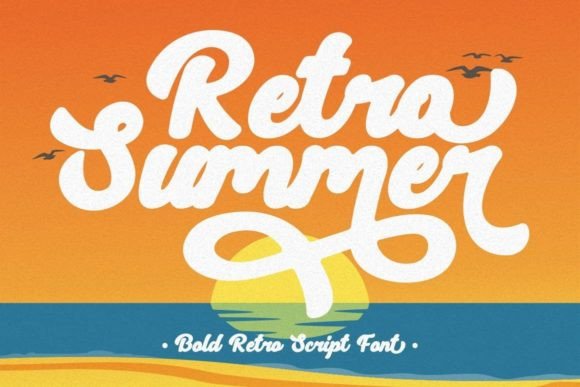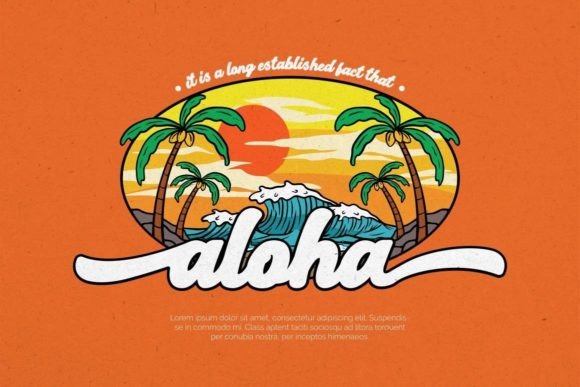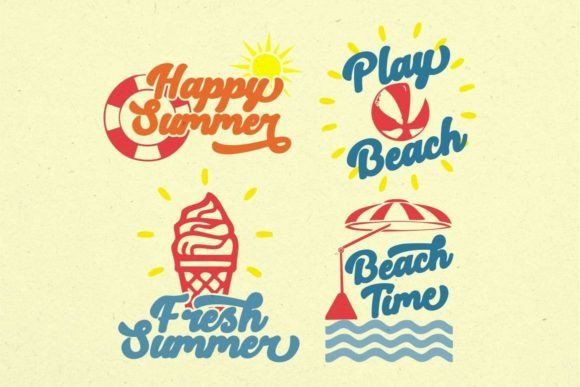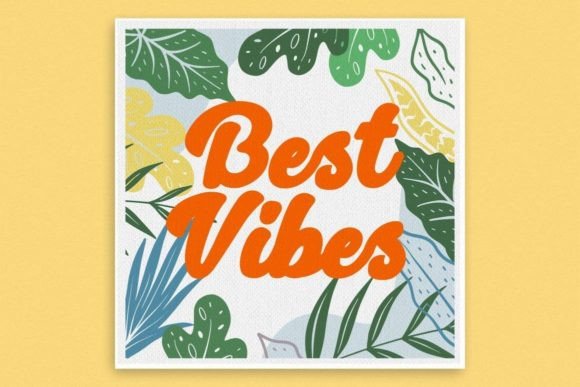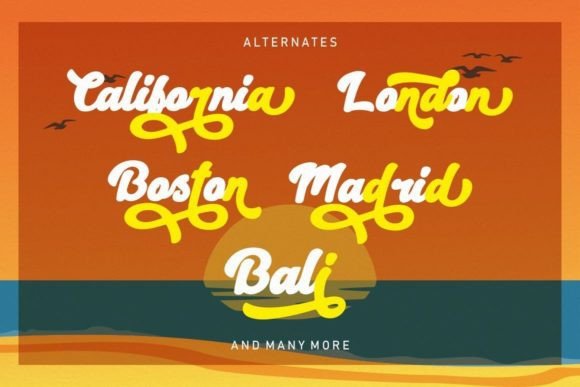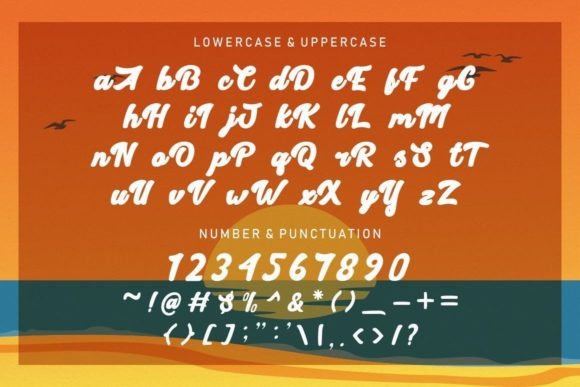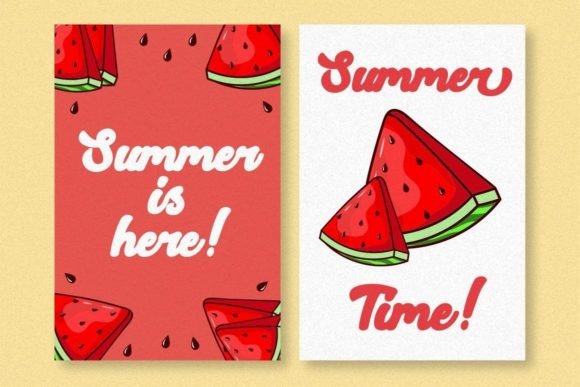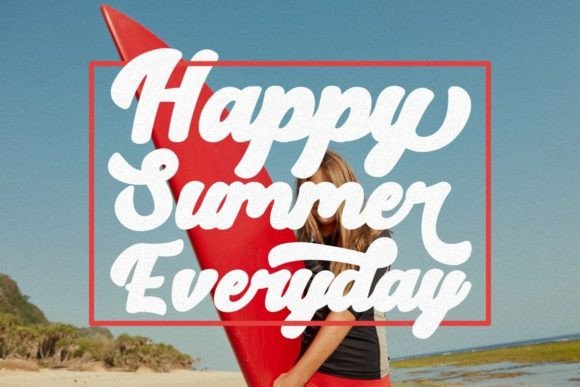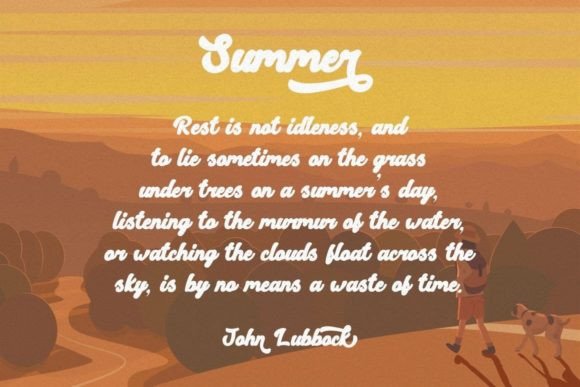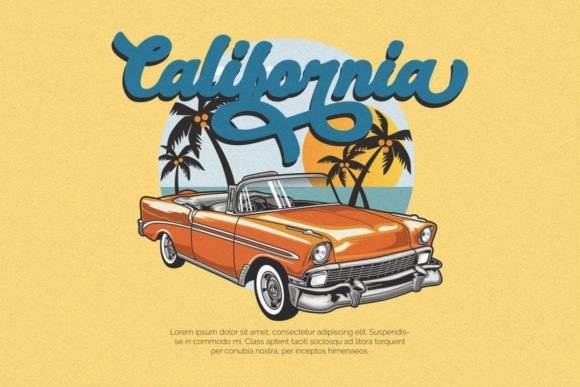
Retro Summer Font
About Retro Summer Font
**Discover Retro Summer: A Bold Retro Script Font**
Transport yourself to an era where vintage meets luxury with Retro Summer, a bold retro script font that seamlessly blends the charm of yesteryears with contemporary aesthetics. This font is a marriage of nostalgia and opulence, making it a versatile choice for an array of projects with retro/vintage and luxury themes. From logos to branding, posters to packaging, book covers to apparel, quotes to titles, Retro Summer adds a touch of timeless elegance to your creative endeavors.
**Vintage Charm with a Luxurious Twist:**
Retro Summer is a font where vintage charm is elevated by a touch of luxury and modern aesthetics. Each letter exudes the classic appeal of retro design, while the boldness of the script introduces a sense of opulence. The result is a font that effortlessly bridges the gap between the past and the present, offering a unique and stylish typographic experience.
**Perfect for Logos and Branding:**
In the realm of branding, Retro Summer shines as a distinctive choice. The bold script imparts a memorable and impactful character, making your logo stand out. It’s not just a font; it’s a visual signature that communicates both heritage and contemporary sophistication.
**Versatile Application in Design:**
Retro Summer’s versatility extends across various design projects. From captivating posters that harken back to the golden age to packaging that exudes a sense of premium quality, this font adapts seamlessly. Book covers gain a touch of classic allure, and apparel designs become statements of both nostalgia and fashion-forward sensibility.
**Timeless Elegance for Quotes and Titles:**
When it comes to conveying messages with flair, Retro Summer excels. Quotes are transformed into visual masterpieces with the font’s bold and expressive script. Titles, whether for books or presentations, carry a timeless elegance that captures attention and sets the tone for the content within.
**Conclusion: Elevate Your Designs with Retro Summer**
In conclusion, Retro Summer is more than a font; it’s a journey through time, a visual exploration of vintage charm infused with modern luxury. Its bold retro script is a versatile tool that enhances logos, branding, posters, packaging, book covers, apparel designs, quotes, titles, and more. Let Retro Summer be the bridge that connects your projects with the timeless allure of the past and the contemporary aesthetics of today. Elevate your designs with the classic yet bold elegance of Retro Summer.